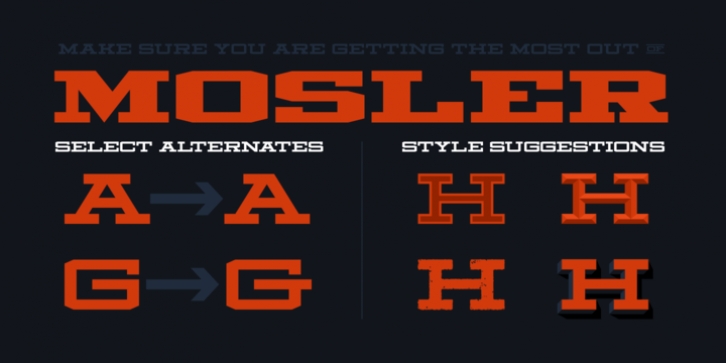
Inspired by the interior of a now defunct Mosler Safe Company bank vault door located inside of what is now an Irish Pub in Stroudsburg, Pennsylvania, Mosler is a typeface that is impenetrability incarnate. This all uppercase, slab-serif brawny beauty comes in four weights - Safe, Strongbox, Vault, and Fortress, and each one is more powerful than the last. Each weight has 450 glyphs included, making for a whopping 1800 glyphs for the full family, complete with small capitals, total support for nearly 80 different languages, decorative word glyphs, and a handful of select alternates. Ranging from the low contrast of the “Safe” weight to the extreme contrast of the “Fortress” weight, Mosler is effective in a wide array of applications but serves best as a titling, headlining, or display face that need to make a mammoth statement.
Features Include:
4 Weights
Uppercase Only with Small Capitals
Numerals, Punctuation & Symbols
450 Characters per Style
Stylistic Alternates and Word Glyphs
Supports 75+ Latin Languages
Designed and Developed by Jason Carne